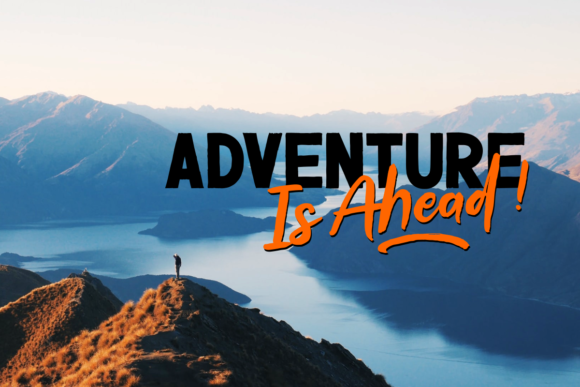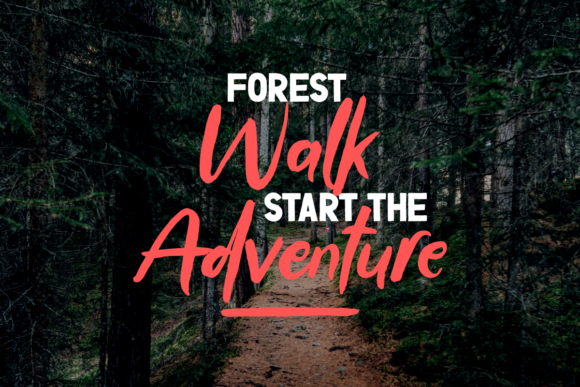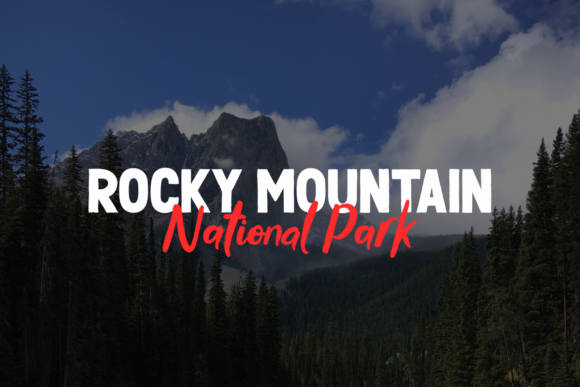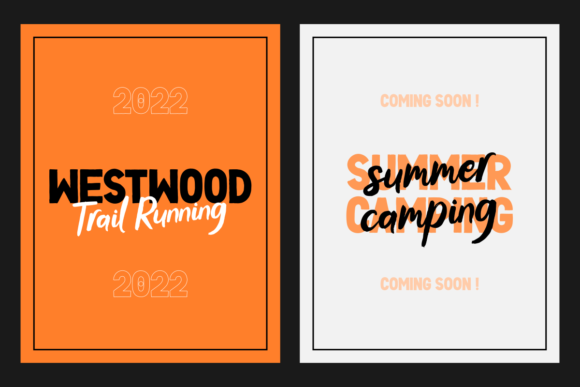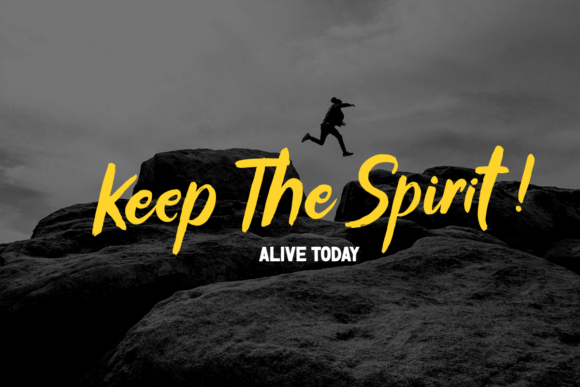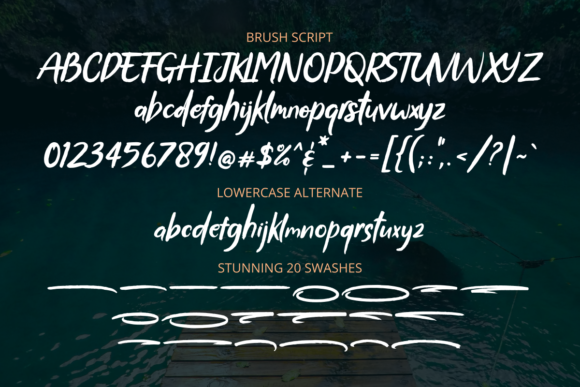
Introducing Blue Water Bold Duo Font: Elevate Your Designs with Chic and Cheery Style
Are you a designer or crafter looking for the perfect font to add a touch of elegance and playfulness to your projects? Look no further than the Blue Water Bold Duo Font. This stunning font duo is designed to complement each other perfectly, making them ideal for a wide range of creative applications. In this article, we’ll dive into the features and benefits of the Blue Water Bold Duo Font and explore how it can elevate your designs.
A Perfect Pair: Two Fonts, Endless Possibilities
The Blue Water Bold Duo Font consists of two carefully crafted fonts that work in harmony to create a unique and stylish look. Whether used together or separately, these fonts are sure to add a chic and cheery touch to your crafts. The duo’s versatility makes it perfect for various design projects, from stationery and branding to packaging and digital media.
Blue Water Bold Duo Font
One of the standout features of the Blue Water Bold Duo Font is its PUA (Private Use Area) encoding. This means that you can easily access all glyphs and swashes, giving you greater creative control over your designs. With PUA encoding, you can effortlessly navigate the font’s extensive character set, including ligatures, ornaments, and other special characters.
Key Features of Blue Water Bold Duo Font
• Two complementary fonts: Designed to work together in perfect harmony, these fonts offer endless possibilities for creative expression.
• PUA encoded: Easy access to all glyphs and swashes, making it simple to customize your designs.
• Chic and cheery style: Add a touch of elegance and playfulness to your projects with this beautiful font duo.
• Versatile: Suitable for a wide range of design applications, from stationery and branding to packaging and digital media.
Why Choose Blue Water Bold Duo Font?
With so many fonts available, why choose the Blue Water Bold Duo Font? Here are just a few reasons:
• Unique and stylish: Stand out from the crowd with this distinctive font duo that’s sure to capture attention.
• Easy to use: With PUA encoding, you can quickly and easily access all glyphs and swashes, making it simple to get creative.
• High-quality design: Crafted with precision and attention to detail, this font duo is perfect for professional designers and crafters.
The Blue Water Bold Duo Font is perfect for a wide range of design projects. Here are some ideas to get you started:
• Stationery and invitations: Create beautiful, eye-catching stationery and invitations for weddings, parties, and other special occasions.
• Branding and packaging: Use the Blue Water Bold Duo Font to create a unique and memorable brand identity for your business or product.
• Digital media: Add a touch of style and sophistication to your digital media, including social media graphics, blog posts, and website headers.
• Crafting and DIY projects: Use the Blue Water Bold Duo Font to add a personal touch to your crafting and DIY projects, such as handmade cards, gift tags, and scrapbooking pages.
The Blue Water Bold Duo Font is a versatile and stylish font duo that’s perfect for designers and crafters looking to add a touch of elegance and playfulness to their projects. With its PUA encoding and extensive character set, this font duo offers endless possibilities for creative expression. Whether you’re working on a professional design project or a personal crafting project, the Blue Water Bold Duo Font is sure to inspire and elevate your designs.